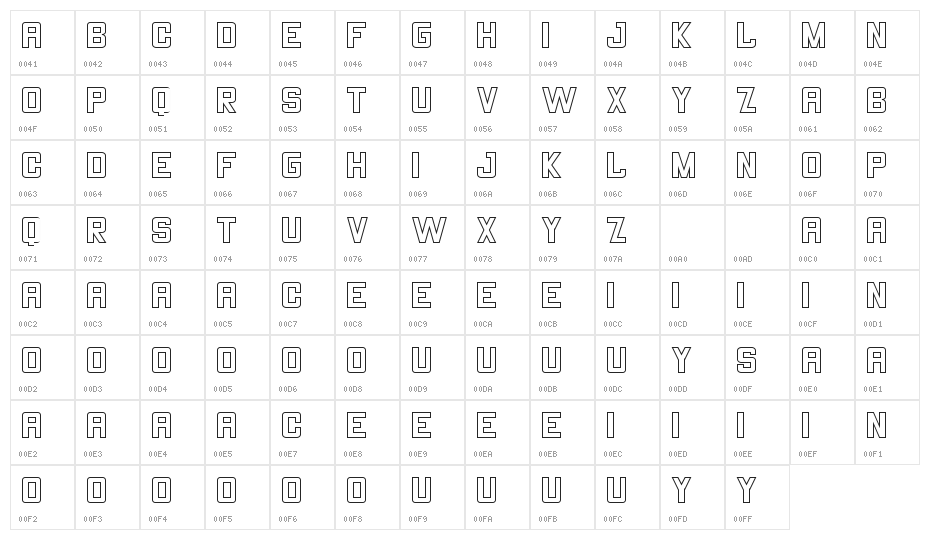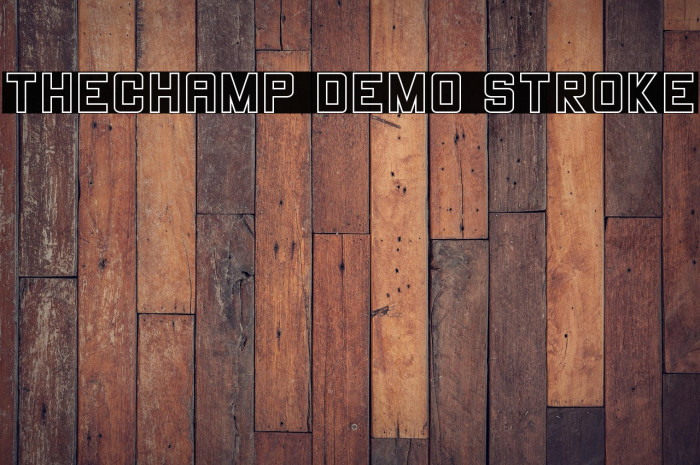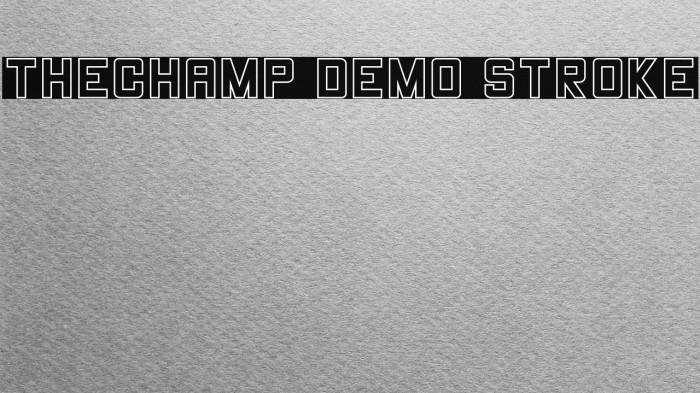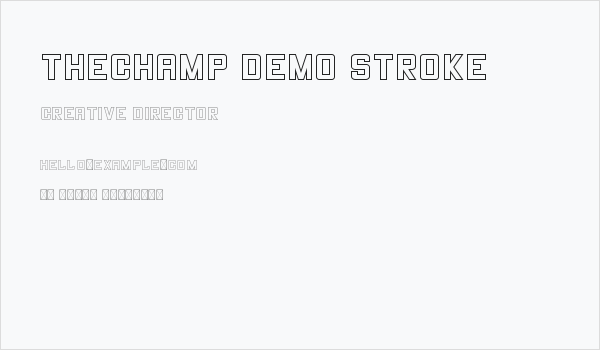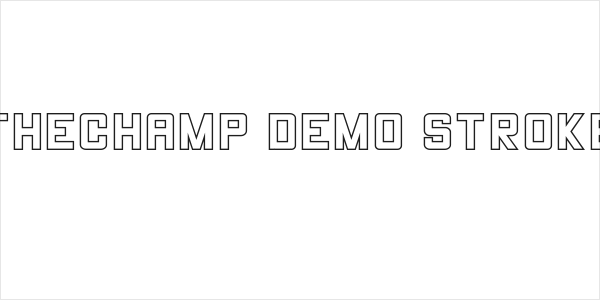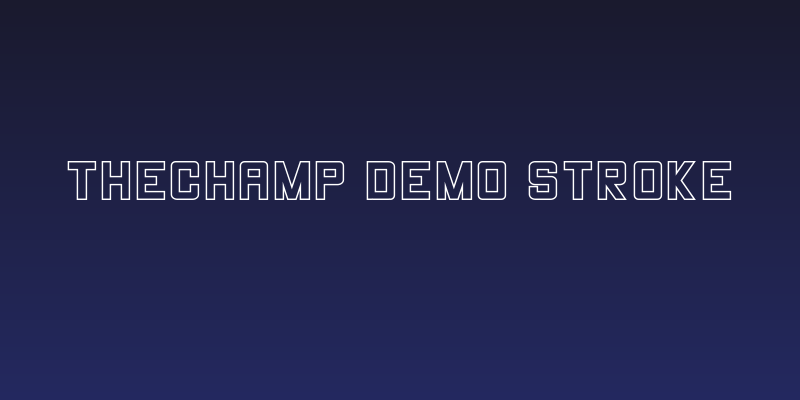
THECHAMP DEMO Stroke Font
THECHAMP DEMO Stroke Description
This font features a bold, geometric design with a distinct outline style that gives it a modern and industrial feel. The characters are constructed with clean, straight lines and sharp angles, creating a sense of precision and strength. The uppercase letters are uniform in height, contributing to a cohesive and structured appearance. The outline effect adds a layer of depth, making the characters stand out prominently. This font is ideal for projects that require a strong visual impact, such as branding, signage, and headlines. Its unique style is both eye-catching and versatile, suitable for a variety of design contexts.
| Use Case | Headlines, Logos, Signage |
| Proposed Projects | Ideal for branding, signage, headlines, and any project needing a strong visual impact. |